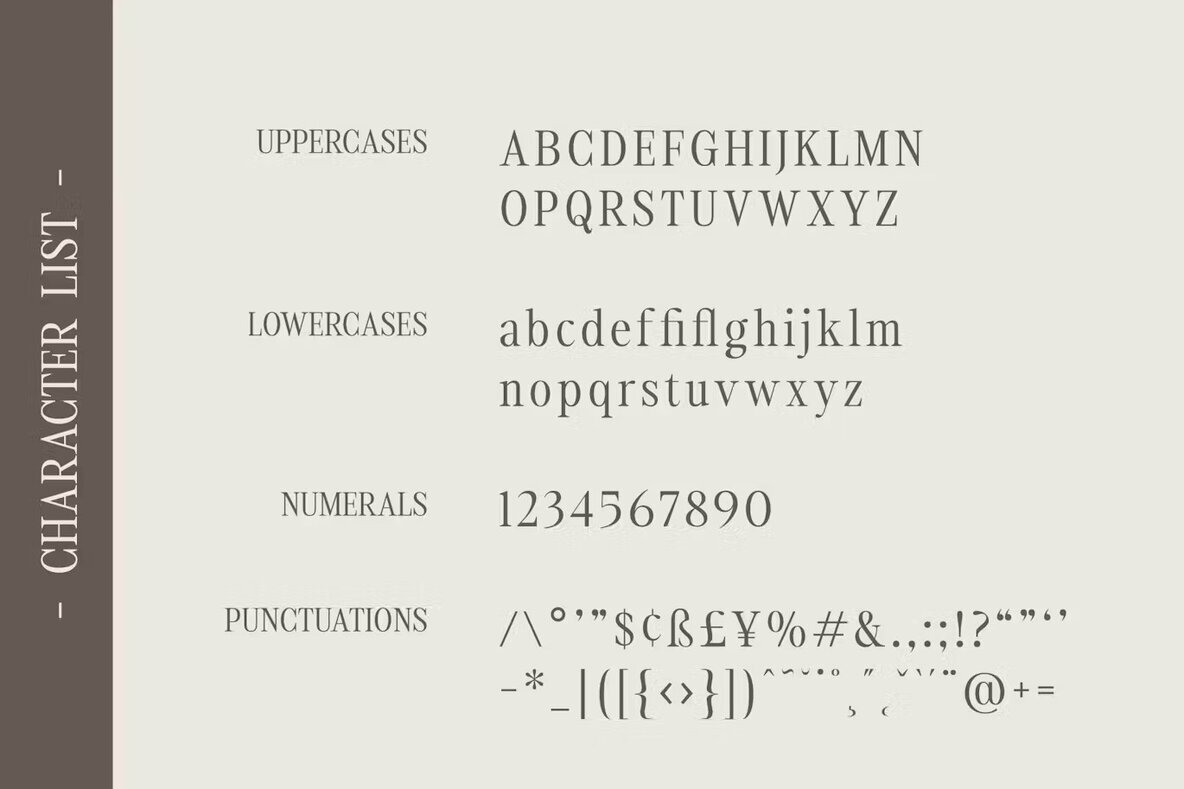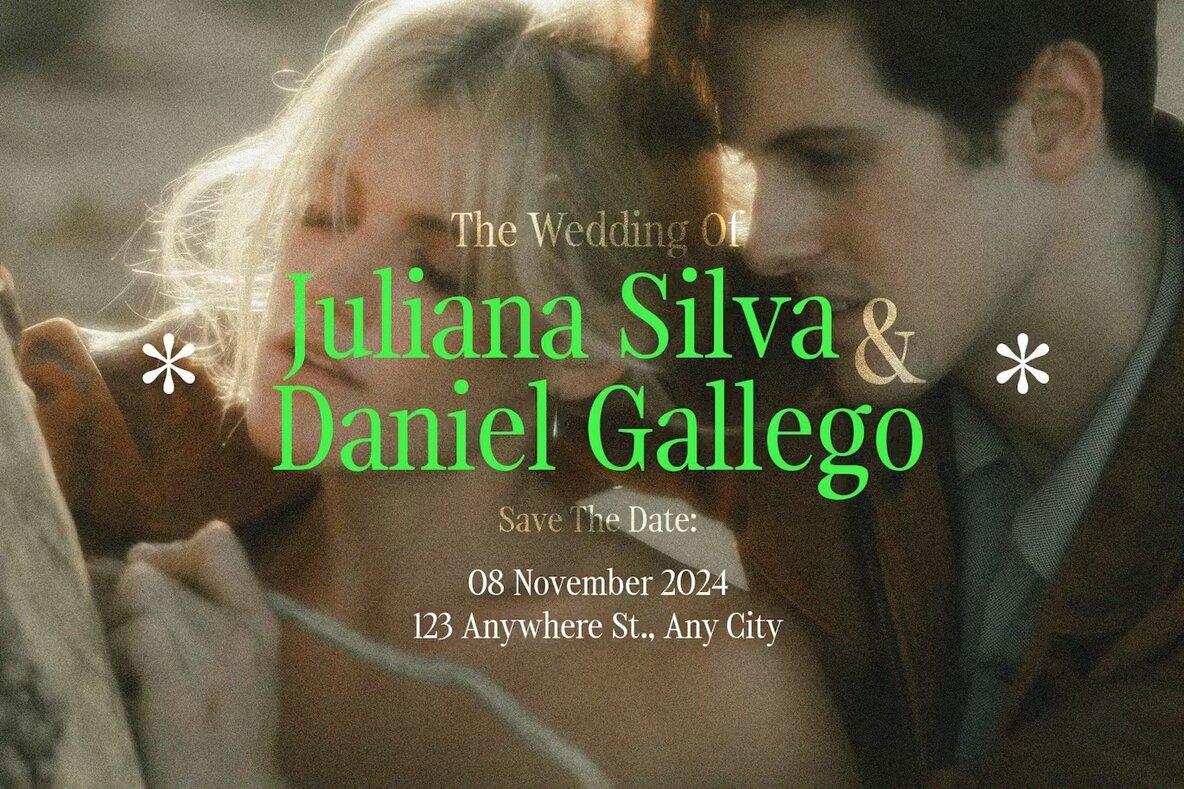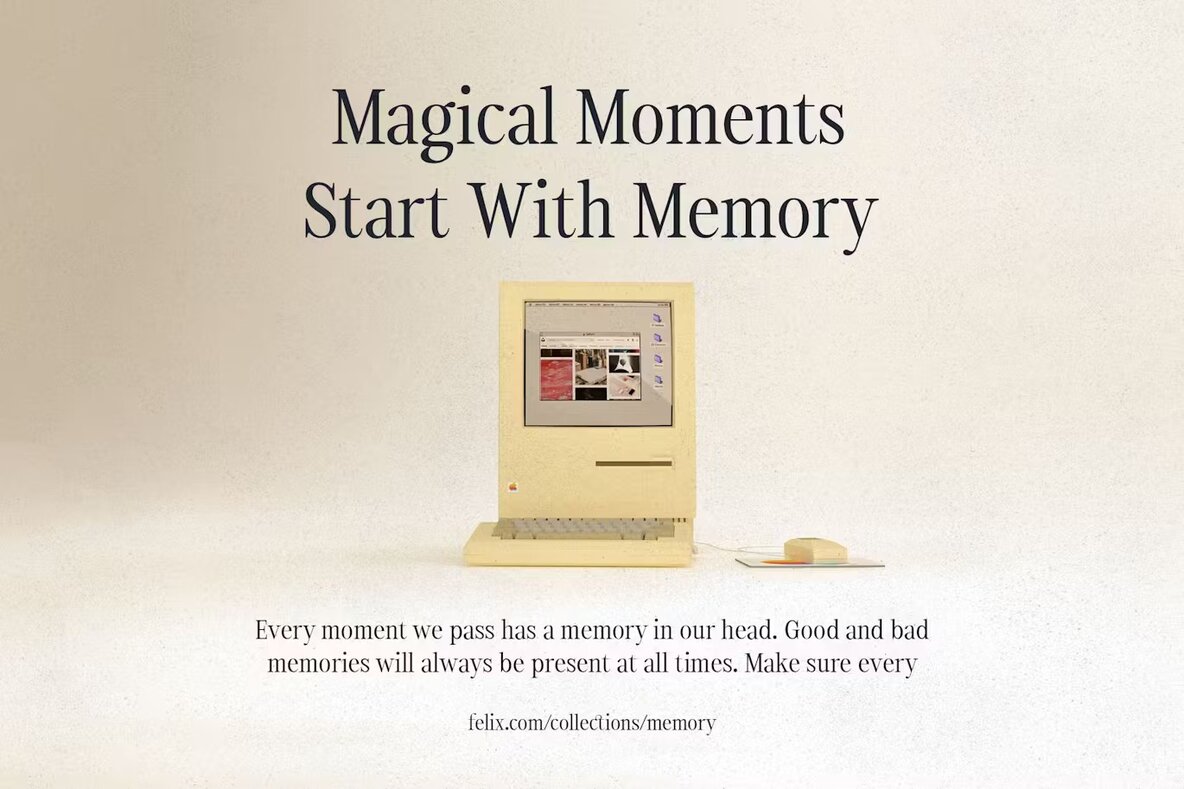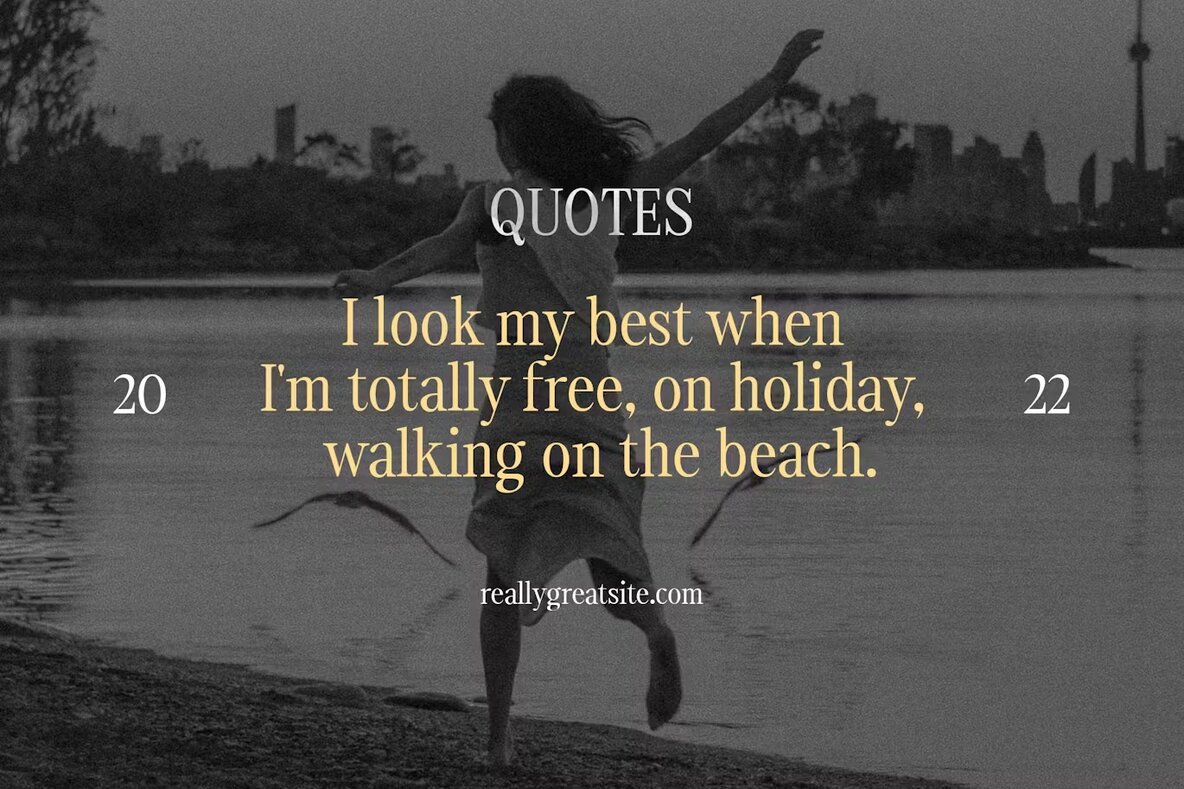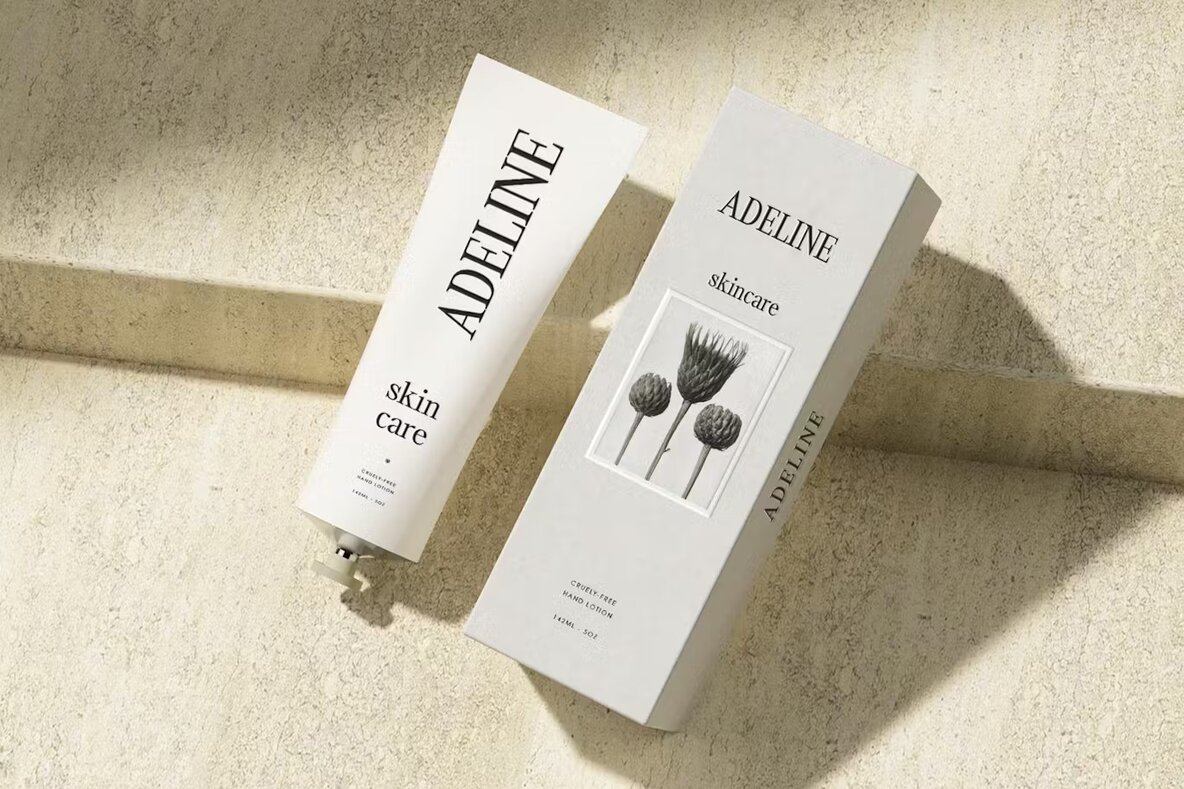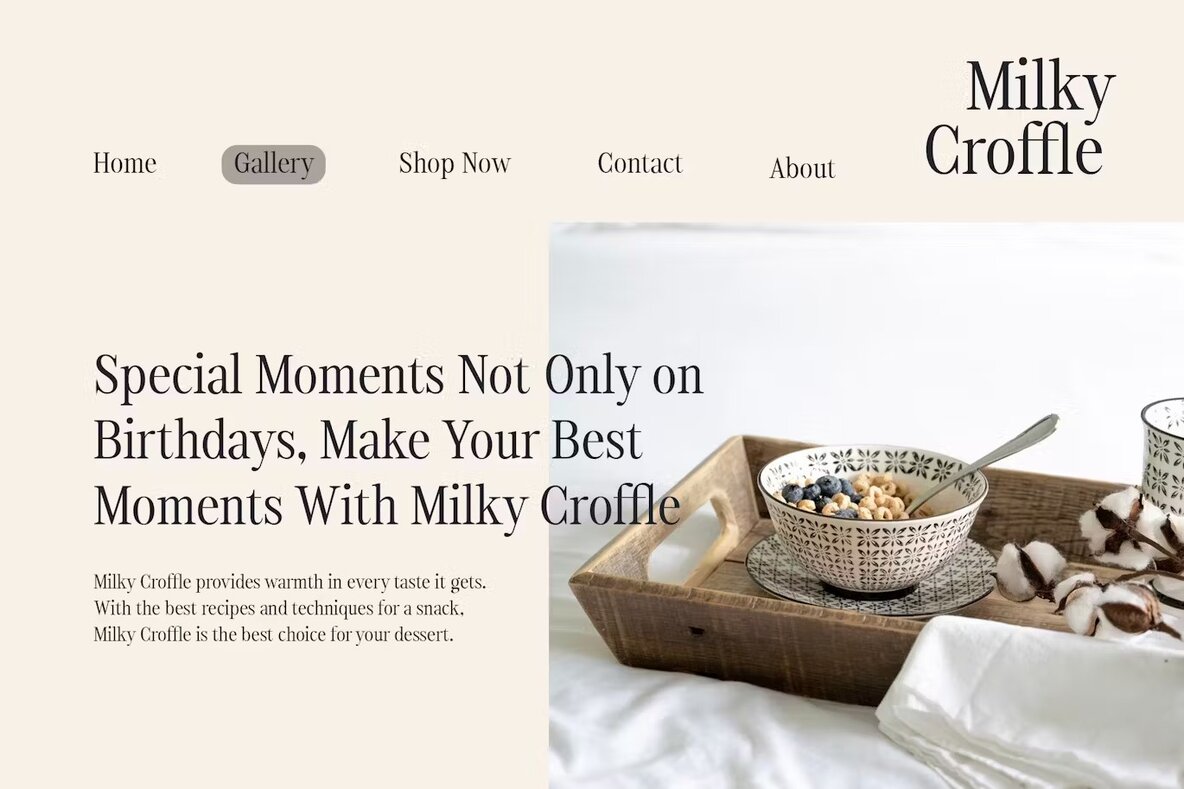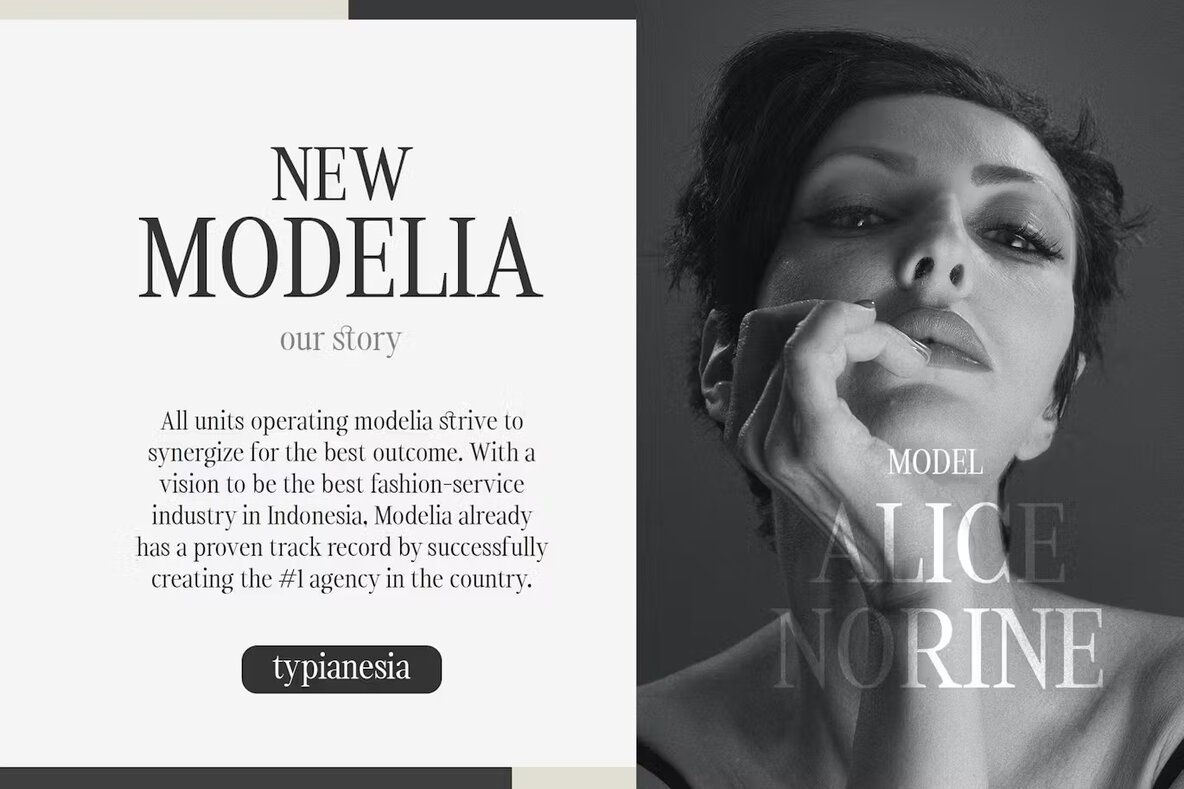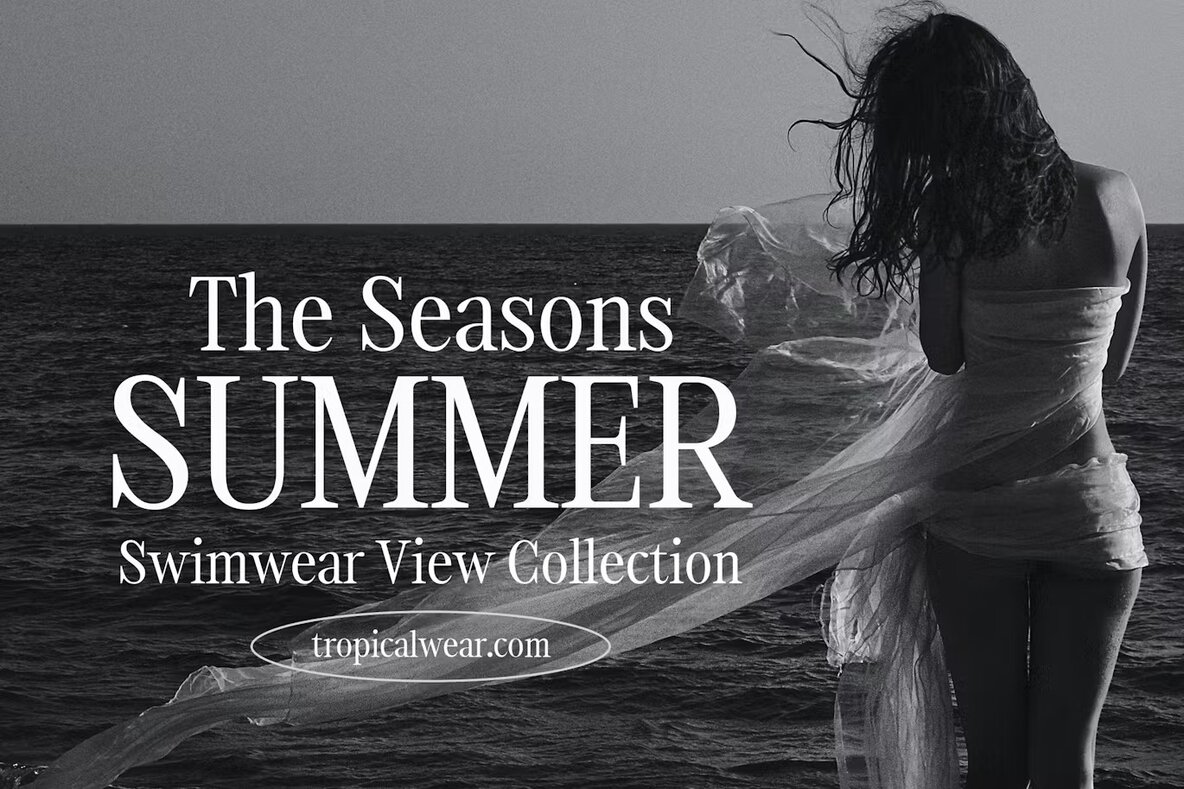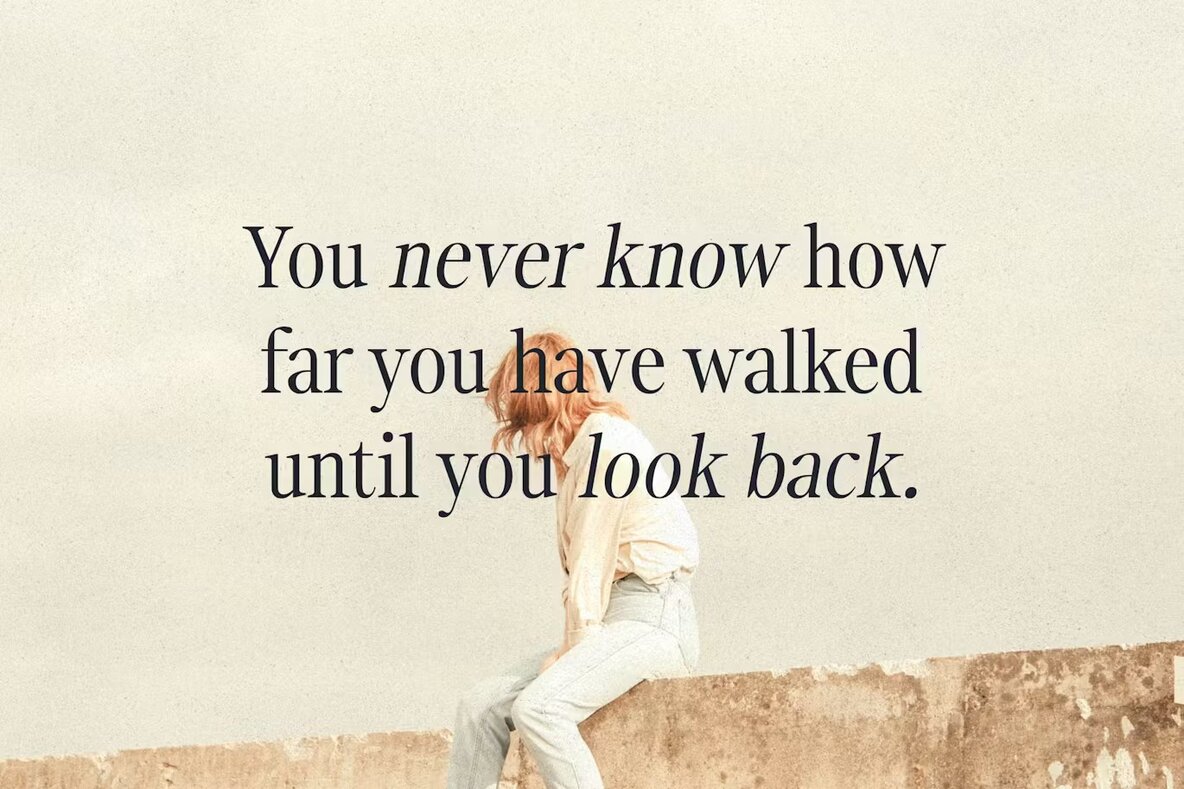
Milky Croffle Font
Milky Croffle Regular
Milky Croffle is a refined serif font that brings a classic retro vibe to any project. Designed with elegant serifs, clean lines, and graceful curves, this font exudes beauty, luxury, and sophistication. Ideal for branding, logos, packaging, and editorial designs, Milky Croffle offers a timeless typography experience with its distinctive and captivating features.
This font's luxurious design makes it a standout choice for designers aiming to infuse their work with a classic retro aesthetic. Whether you're working on high-end branding or stylish editorial projects, Milky Croffle's exquisite appearance will elevate your design with an air of refined elegance. Its well-crafted elements ensure your projects exude a sense of timeless beauty and sophistication.